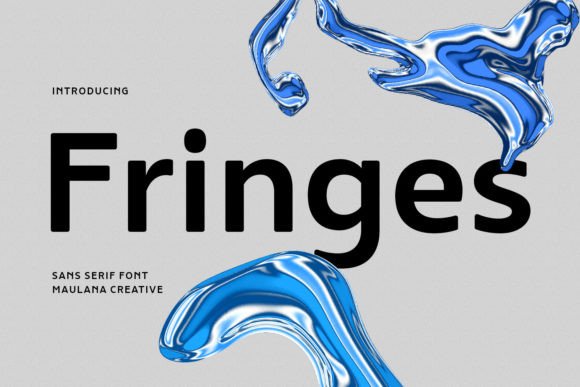
Introducing Fringes Font, a timeless masterpiece that captures the essence of classic sans serif typography. With its clean lines, understated elegance, and a touch of playful ligature, this font is the perfect choice for those seeking a logo that exudes both sophistication and charm.
Fringes Font is a versatile font that performs exceptionally well in both digital and print media. Whether you're crafting a business logo, designing social media graphics, or composing movie or book titles, this font's adaptability ensures your designs shine. Its crisp, legible characters make it ideal for both short and long text, while its ability to complement both script and serif fonts provides endless creative possibilities.
Unleash your imagination and create a stunning logo that reflects your brand's identity with Fringes Font. Its timeless design transcends trends, ensuring your logo remains relevant and impactful for years to come. As a bonus, Maulana Creative, the font's creator, has included a range of alternates and ligatures to add a touch of individuality and creativity to your designs.
With Fringes Font, you can:
* Design a logo that exudes classic elegance and sophistication
* Create social media graphics that pop with personality
* Craft movie and book titles that command attention
* Compose text that is both visually appealing and easy to read
* Experiment with different font combinations to create unique and memorable designs
Fringes Font is more than just a font; it's a gateway to a world of creative expression. Let your imagination soar and craft designs that captivate and inspire.